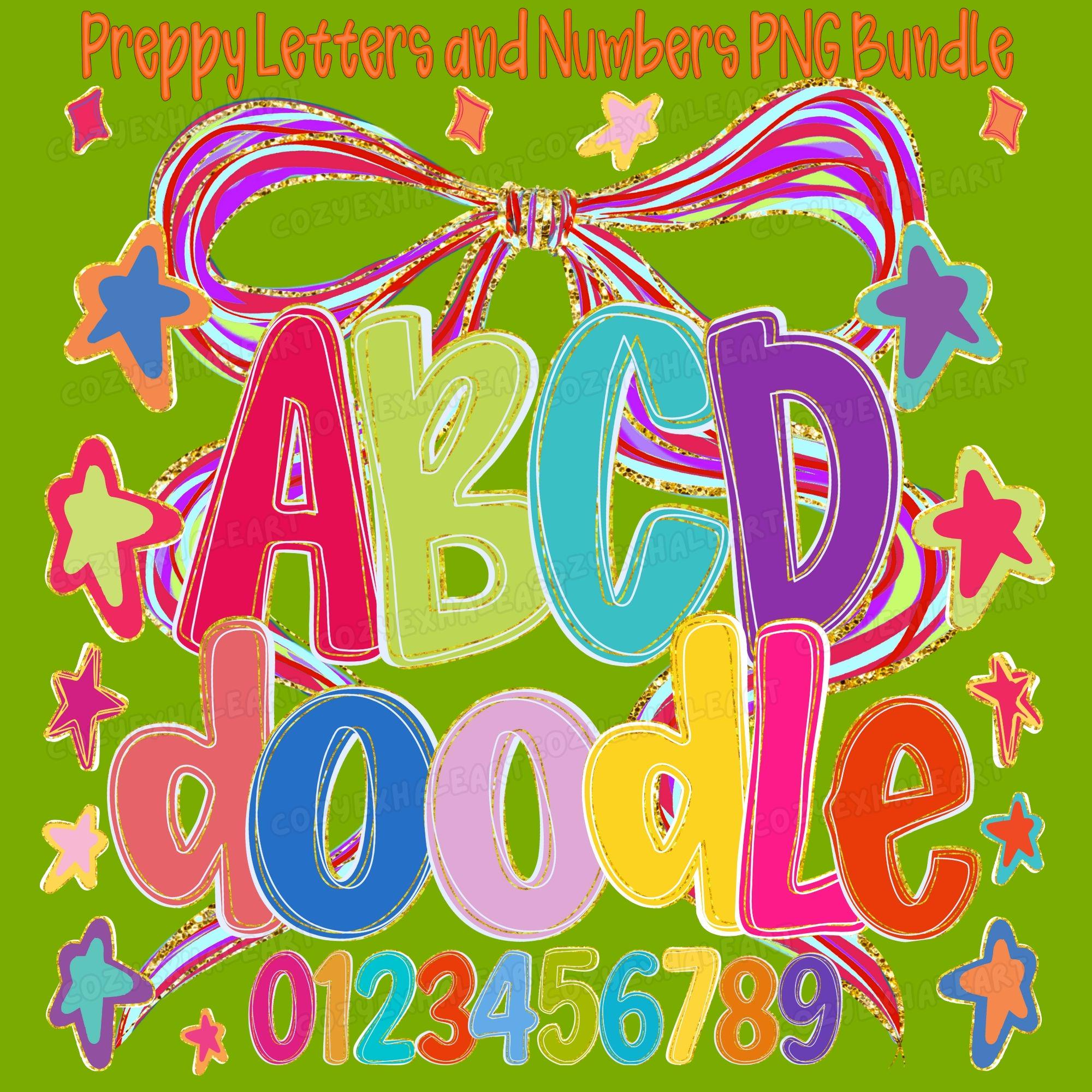
Preppy Mascot Letters and Numbers PNG Bundle Bright Doodle Alphabet A-Z 0-9 Colorful Funky Font Clipart Sublimation Design for Teachers and Crafters 22 Colors
Get creative with our Preppy Mascot Letters and Numbers PNG Bundle – a fun, colorful alphabet clipart set perfect for teachers, crafters, and small shop owners! With bright doodles, funky lettering, and full A–Z, a–z, and 0–9 coverage, this bundle is ready to personalize everything from back-to-school shirts to classroom decor 🎨📚🌈
🧁 Includes uppercase A–Z, lowercase a–z, and numbers 0–9 in bright preppy doodle style
🌈 Perfect for teacher shirts, classroom signs, kids’ names, labels, and craft projects
✏️ Great for back-to-school, school spirit shirts, bulletin boards, and DIY gifts
👩🏫 Ideal for educators, makers, and small businesses looking to add fun to designs
🖍️ Vibrant mascot-style designs with playful flair and eye-catching colors
Add personality to every project with this must-have font bundle made for fun, color, and creativity! 🎉📘💡